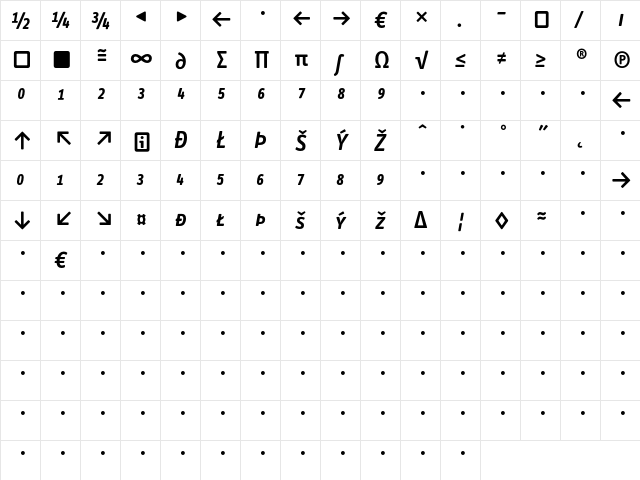
InfoTextSemibold CapsItaExp
Design Context for InfoTextSemibold Typeface
InfoTextSemibold offers clean, dependable letterforms without strong stylistic allegiance, making it a practical choice for designers who need flexibility. Its bold stroke weight gives it real presence on the page.